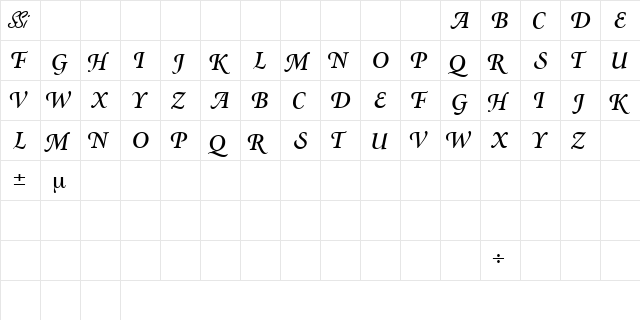
AtlantixSwashCapsSSK Bold Italic Font Preview
Design Context for AtlantixSwashCapsSSK Typeface
AtlantixSwashCapsSSK brings a calligraphic fluidity to the page — its connecting strokes and expressive curves give it an unmistakably human quality. The heavy weight commands attention and anchors typographic hierarchies.